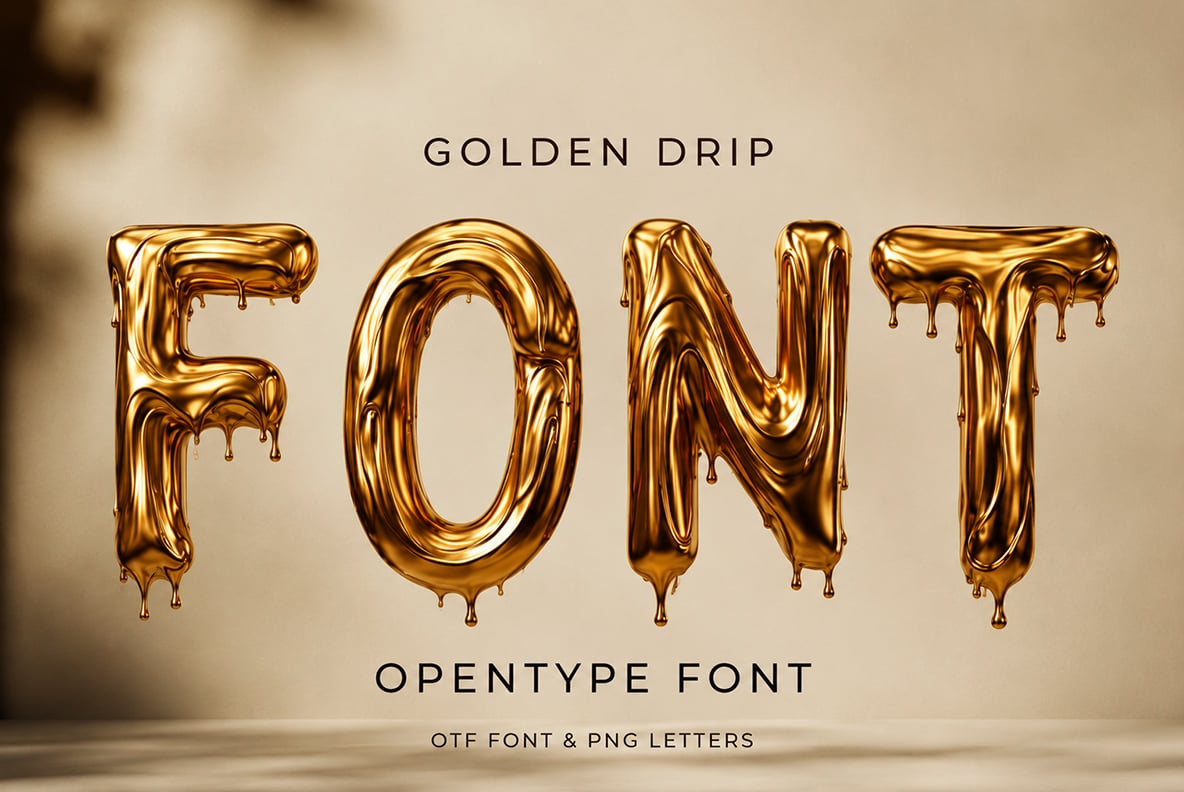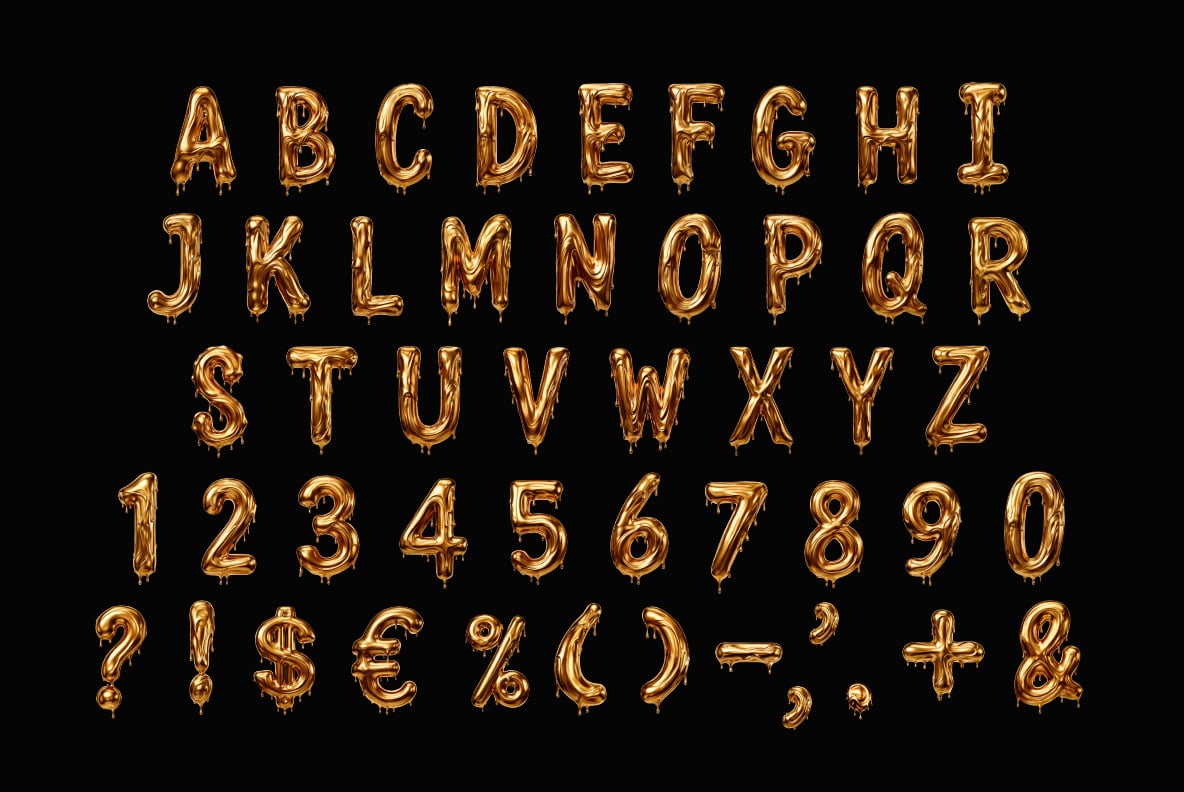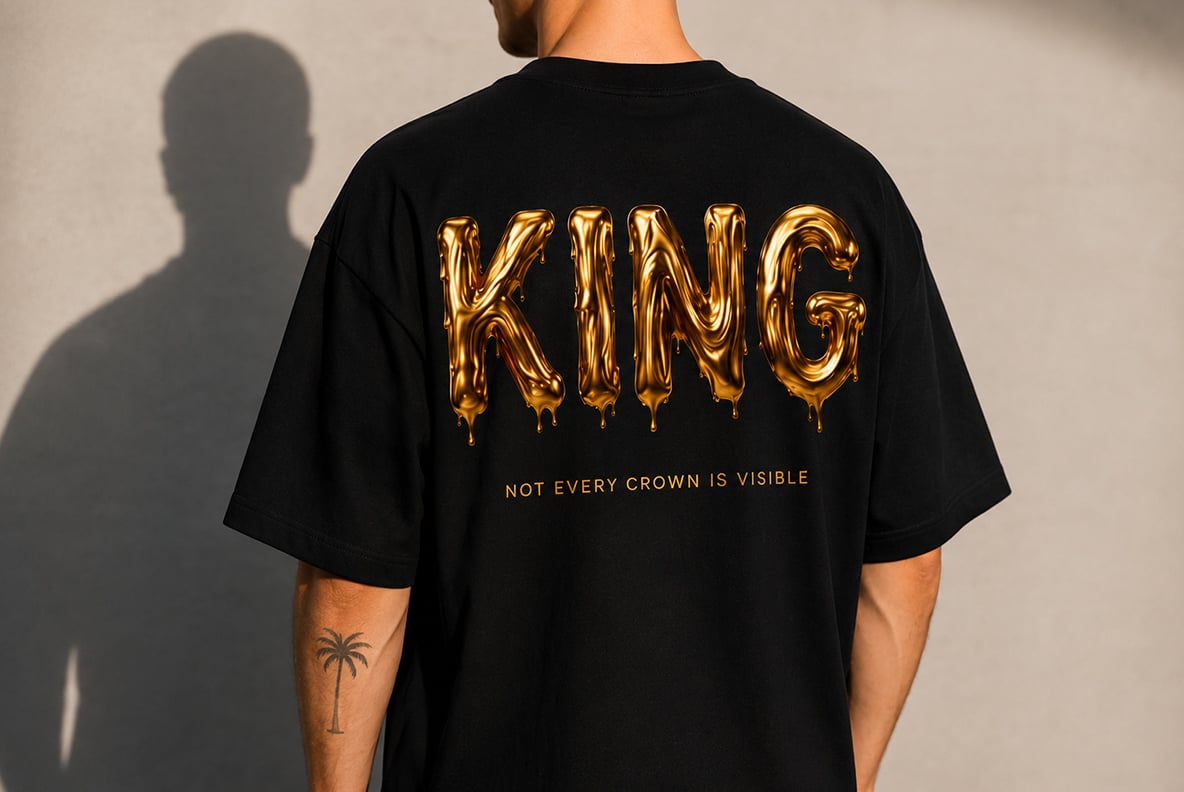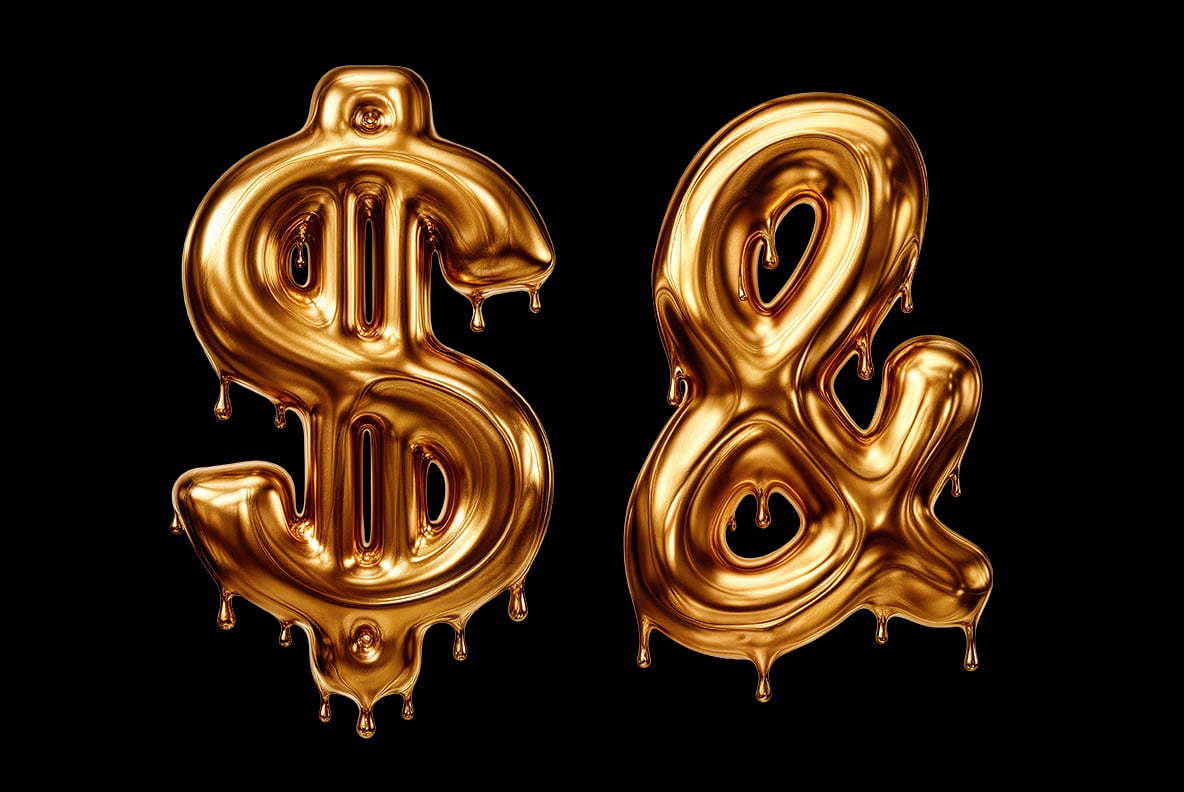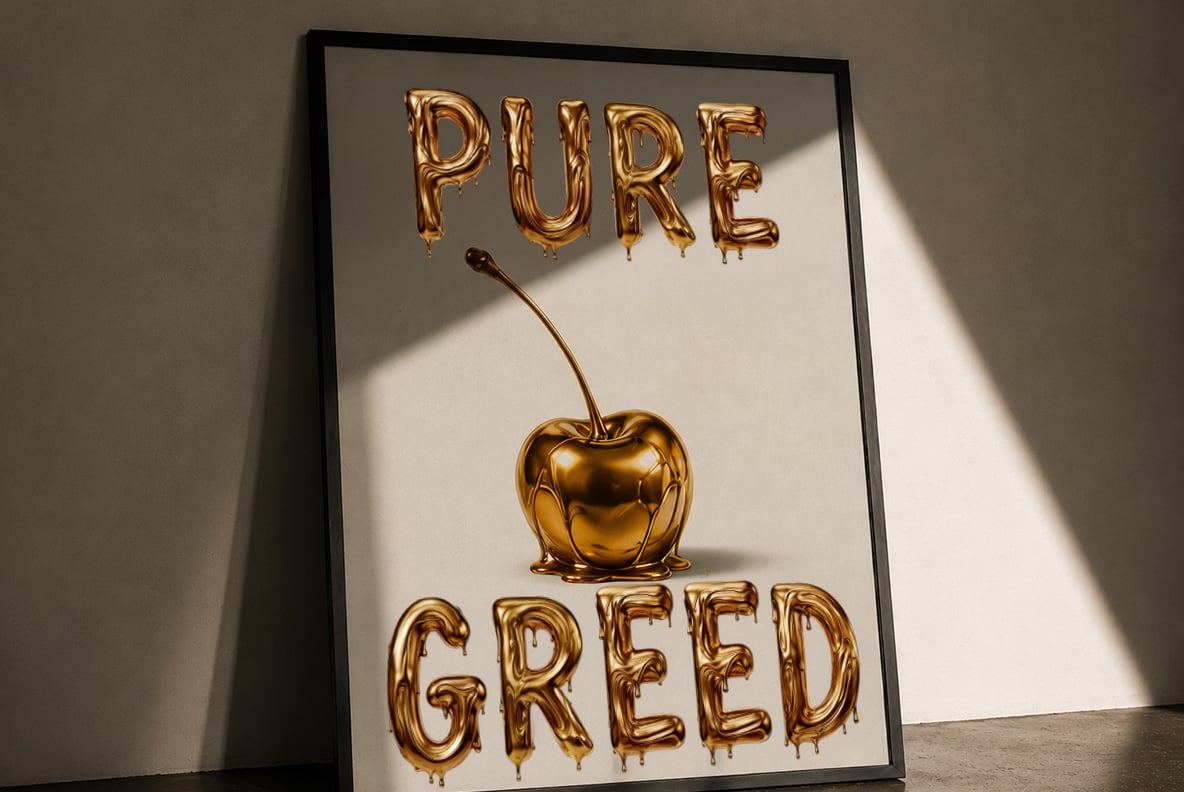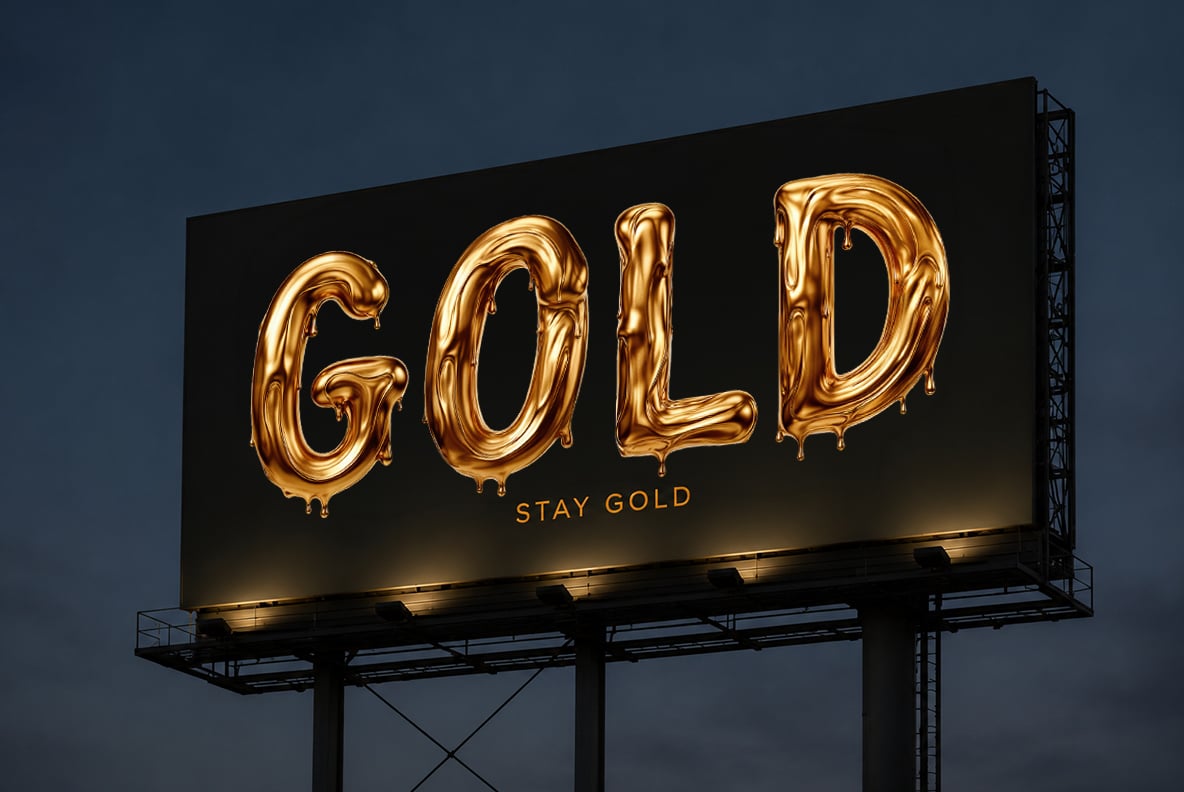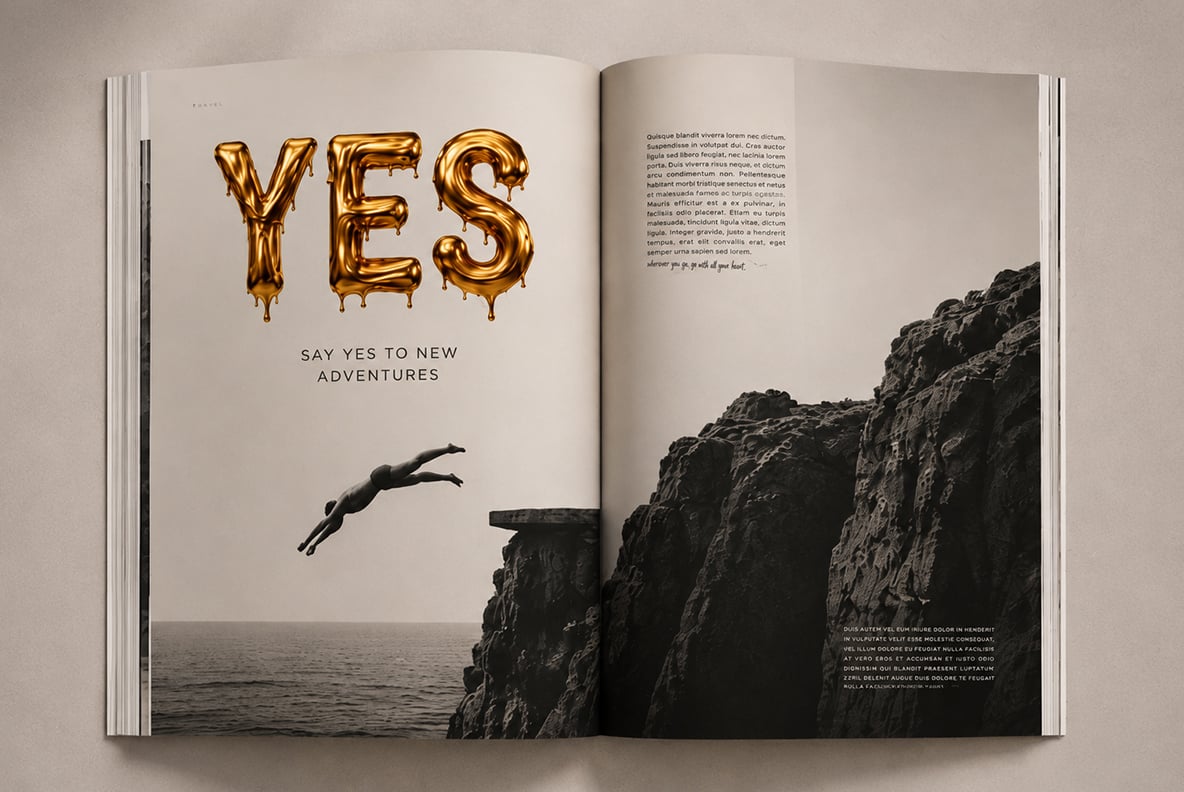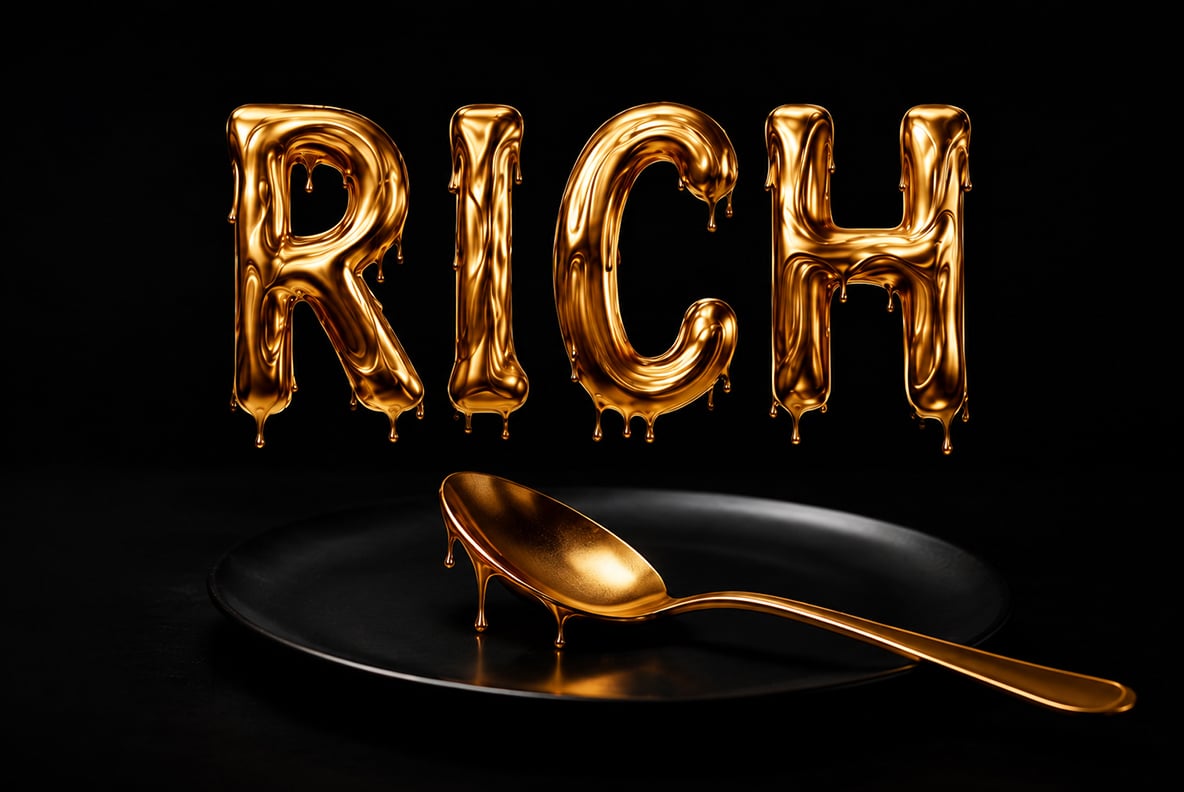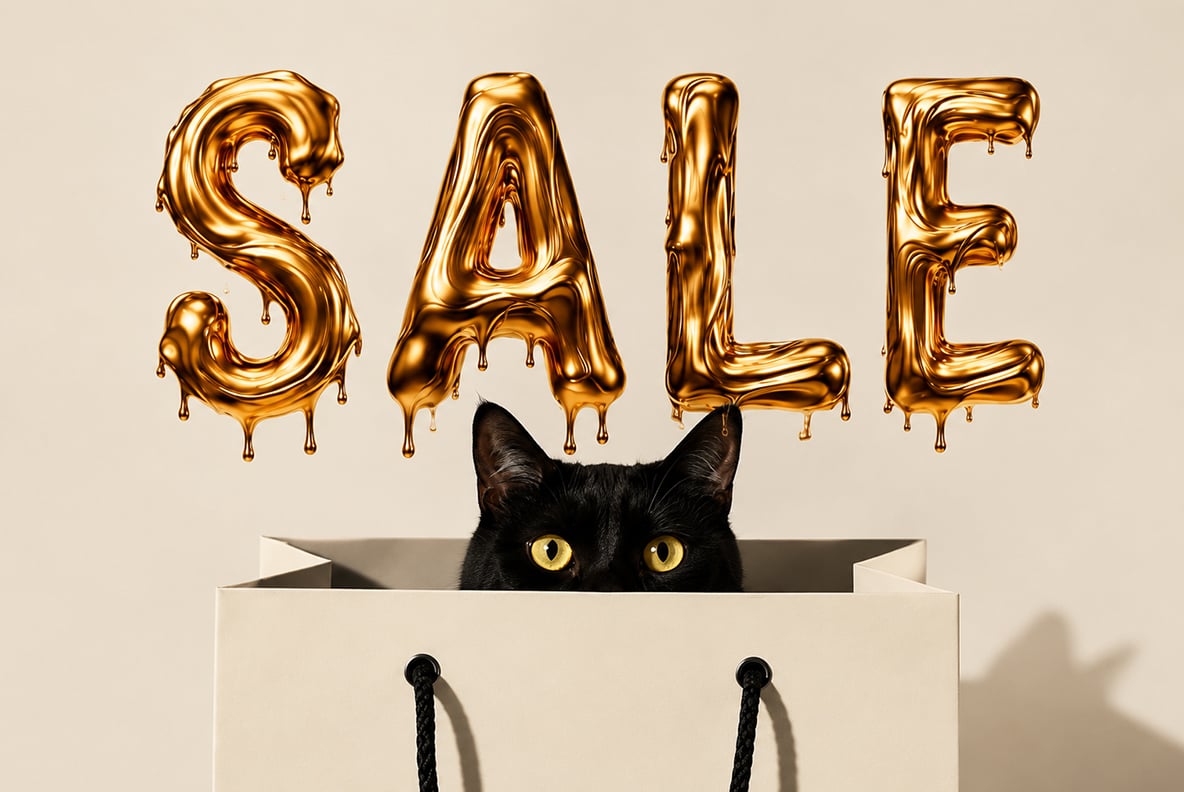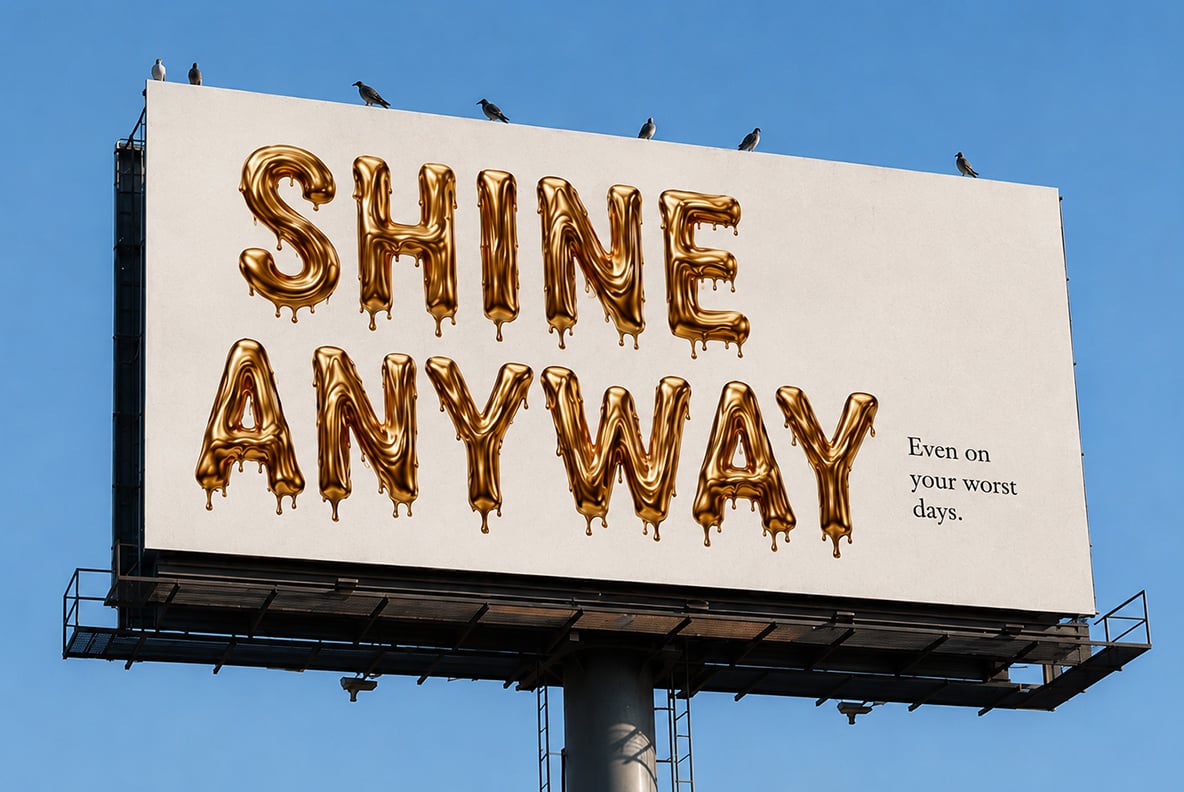
Golden Drip Font
Golden Drip Font is a luxurious display typeface inspired by flowing molten gold and rich metallic textures. Every character features smooth liquid shapes with elegant dripping details, creating a bold, premium, and eye-catching appearance. Perfect for luxury branding, cosmetics, fashion, jewelry, packaging, posters, social media graphics, editorial design, event invitations, and premium product presentations. The package includes the complete OpenType (OTF) font for easy typing, plus every letter, number, and symbol as individual high-resolution PNG files with transparent backgrounds, giving you maximum creative flexibility for custom layouts, compositions, branding, digital artwork, and professional design projects.